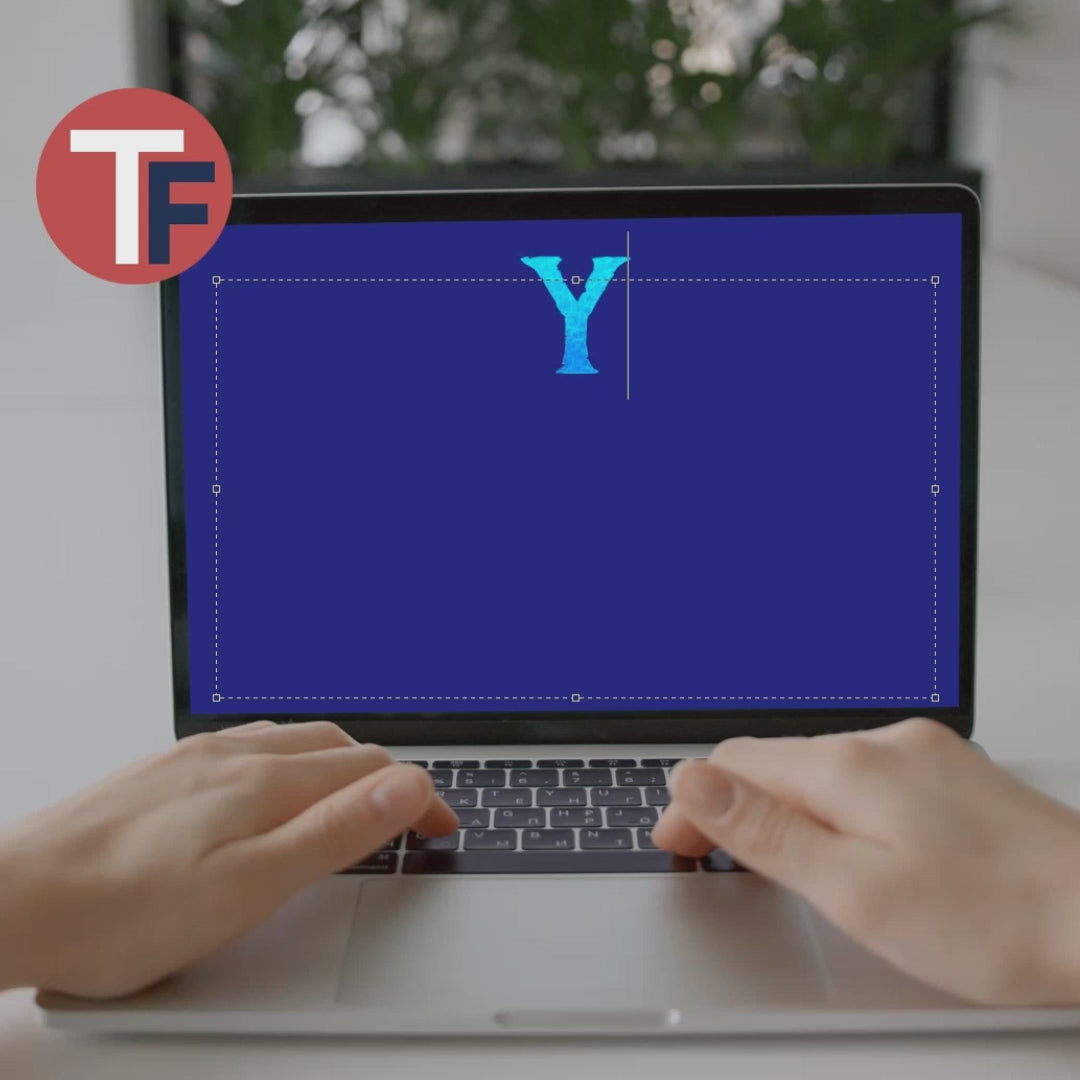
Pandora's Glow Font Textured
Step into a lush, vibrant alien world with the Pandora's Glow textured font compatible with Canva. This font is inspired by a groundbreaking film that introduced us to awe-inspiring extraterrestrial beings and left an indelible mark on the world of typography. The visual language, including typography, is as integral to its narrative as the captivating alien landscapes and story.
What Font is Pandora's Glow Font?
This typeface encapsulates the futuristic and otherworldly essence of an alien planet, with designers drawing inspiration from organic forms. The characters of this font are intricately designed with flowing lines, imbuing them with a dynamic and unique feel that resonates with an extraterrestrial setting.
What Can You Do With Pandora's Glow Font?
The Pandora's Glow font's unique style is ideal for various creative endeavors:
- Science fiction-themed event invitations
- Futuristic and otherworldly poster designs
- Alien-inspired digital artwork
- Custom t-shirt and apparel graphics
- Social media content for sci-fi fans
- Website headers for fantasy or sci-fi themes
- Themed gaming and VR environments
- Book covers for science fiction literature
- Movie night invitations or decorations
- Branding for products with a futuristic aesthetic
Whether you're creating promotional materials for sci-fi events, designing futuristic merchandise, or simply adding an otherworldly touch to your projects, the Pandora's Glow font offers a unique way to bring alien aesthetics into your designs.